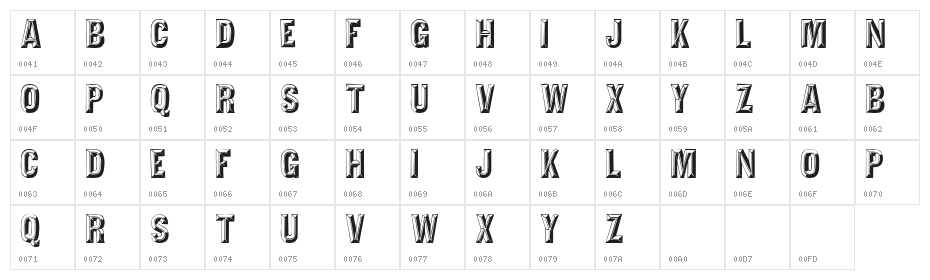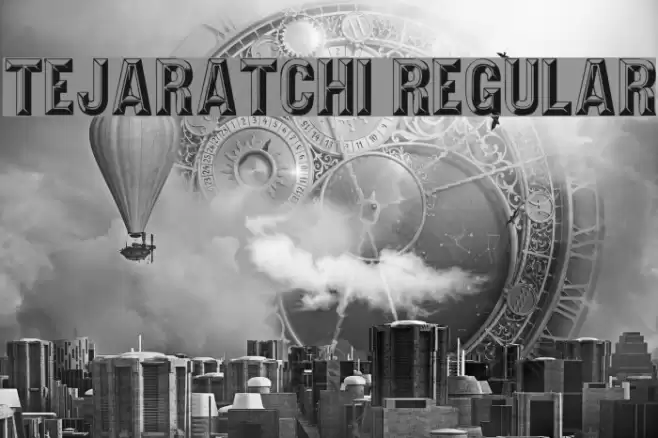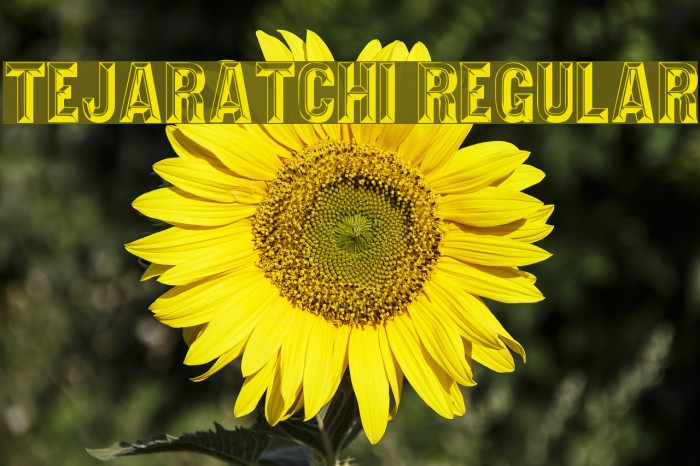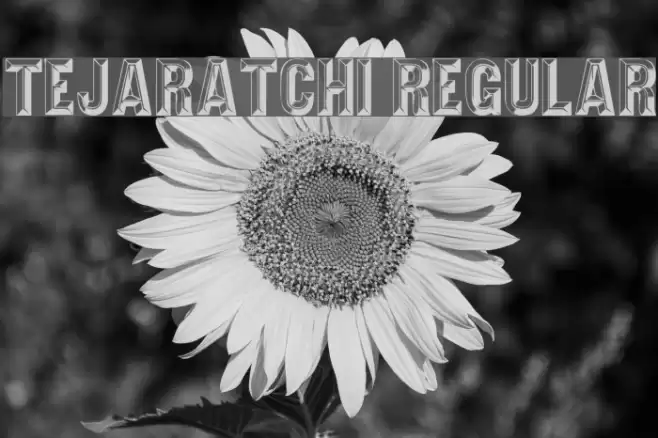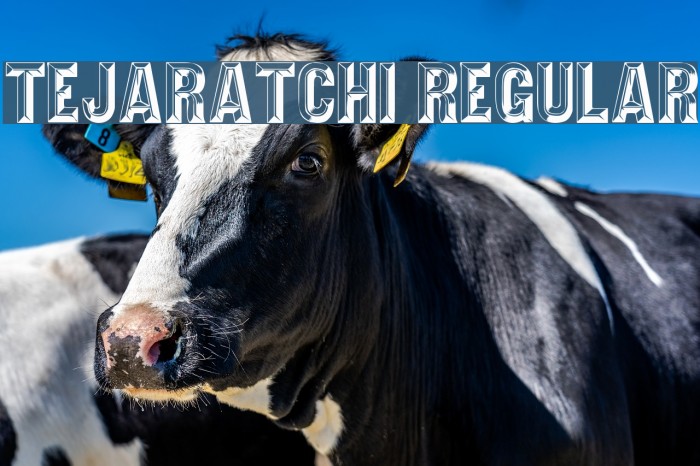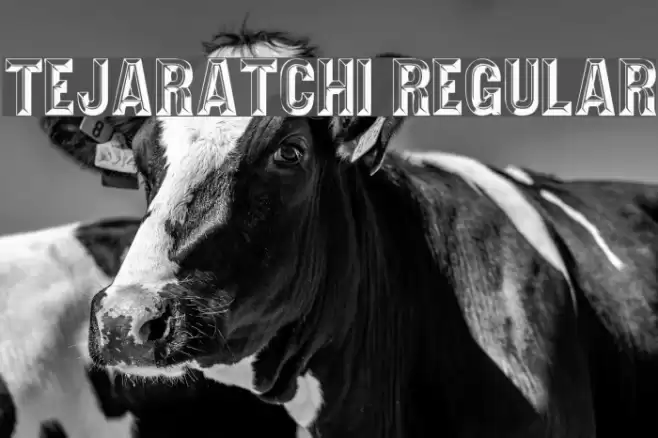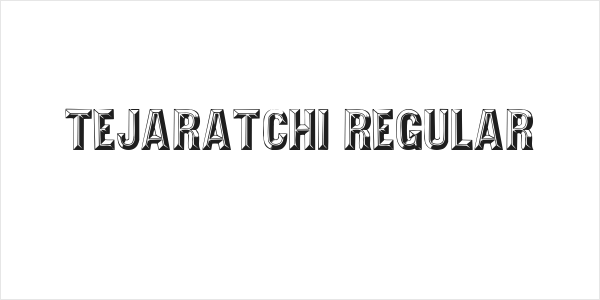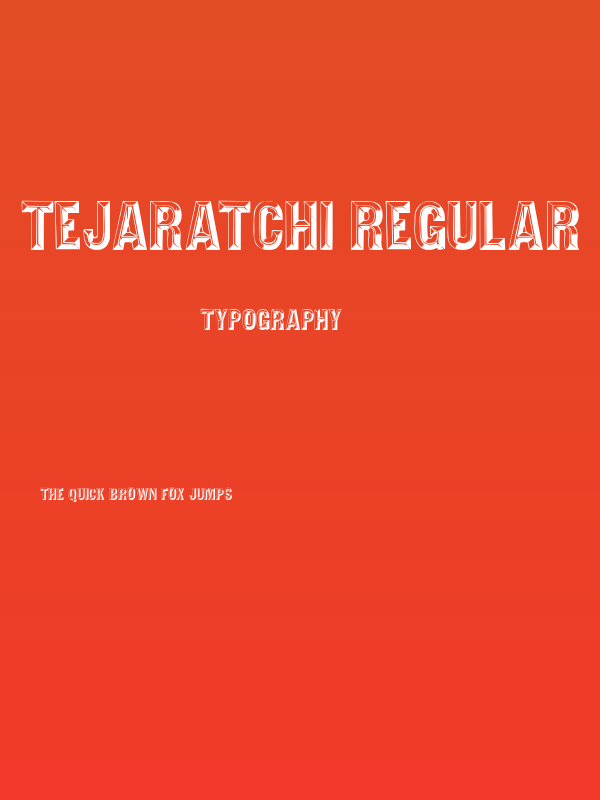
Tejaratchi Regular Font
Tejaratchi Regular Description
This font features a bold, three-dimensional style with a strong presence. The uppercase letters are designed with a shadow effect that gives them a striking, embossed appearance. The characters are wide and have a decorative flair, making them stand out prominently. The font's unique style is reminiscent of vintage signage or classic poster typography, with a modern twist. Its bold strokes and intricate detailing make it ideal for projects that require a touch of elegance and sophistication. The font does not include lowercase letters or numerals, focusing solely on uppercase characters, which enhances its decorative appeal.
Proposed ProjectsIdeal for vintage-themed posters, signage, branding, and headlines that require a bold statement.